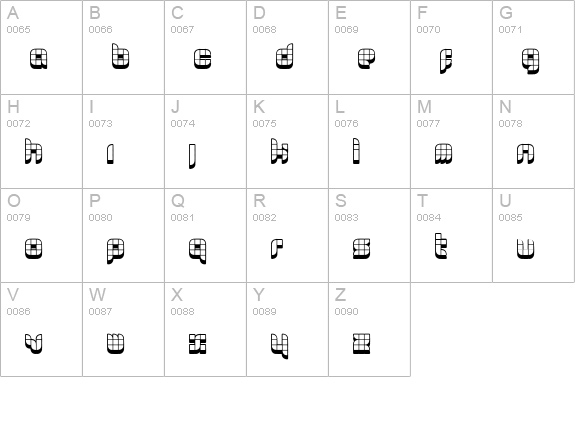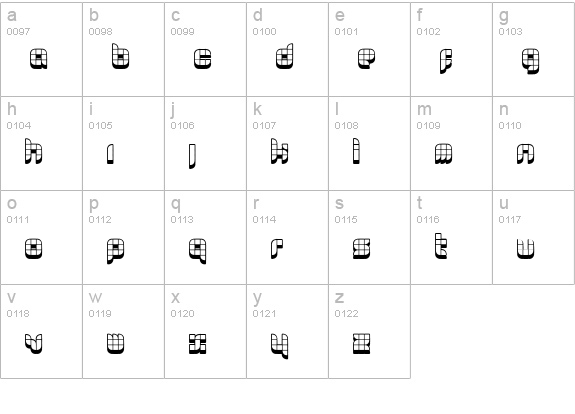
06 29 Font Details
The 06 29 font is a beautifully crafted typeface that exudes elegance and sophistication. Its sleek lines and modern design make it perfect for a wide range of projects, from branding to editorial design. The versatility of this font allows it to be used in both print and digital mediums, making it a must-have for any designer's toolkit. What sets the 06 29 font apart is its unique blend of classic and contemporary elements, creating a timeless look that will never go out of style. Whether you're working on a logo, website, or poster, this font will give your project a polished and professional finish. Best of all, the 06 29 font is freely available to download at FontsMarket.com, allowing you to access this high-quality typeface at no cost. Don't miss out on the opportunity to enhance your designs with the 06 29 font - download it today and take your work to the next level!